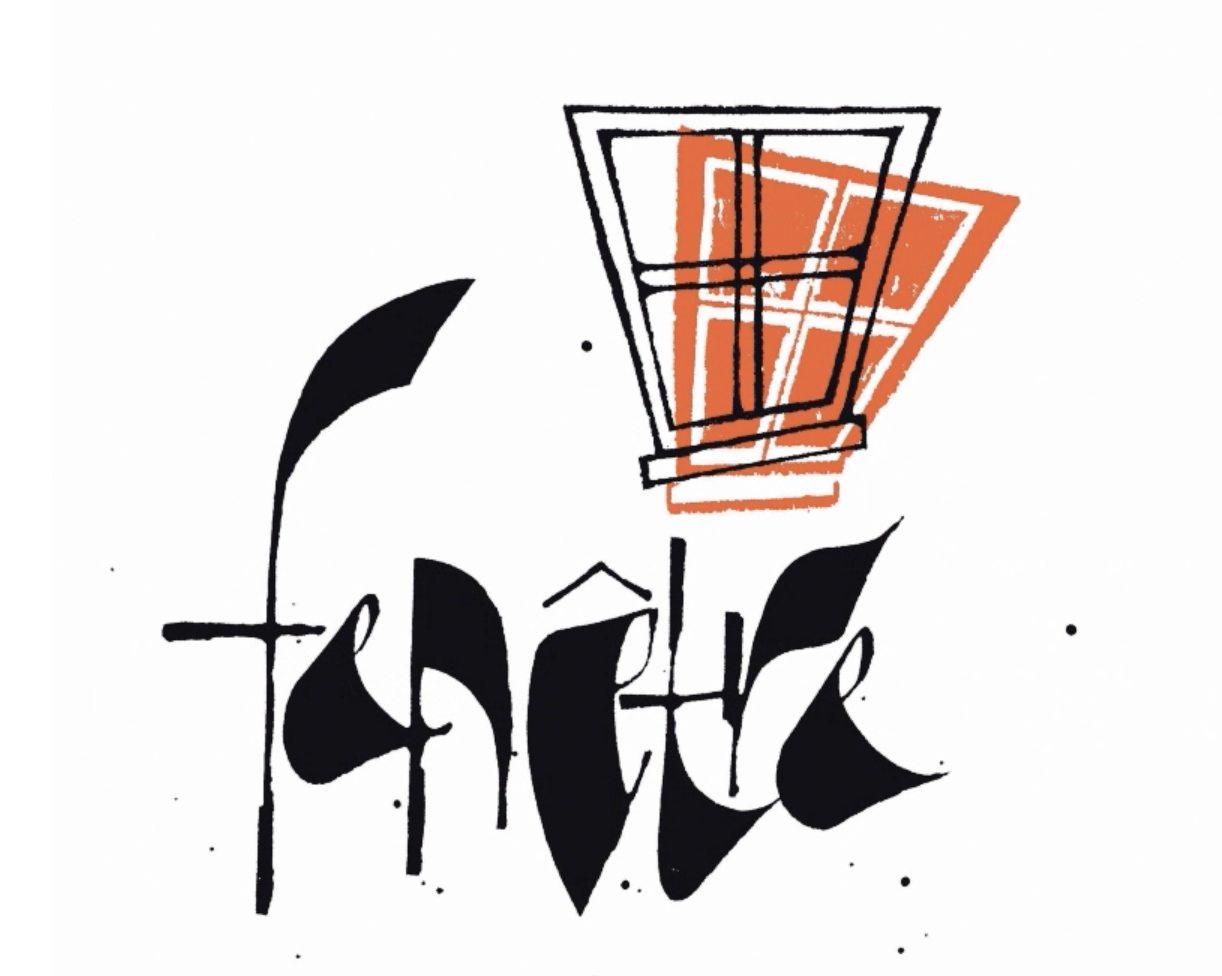
This workshop will cover two subjects. The main focus will be to learn a few unique and whimsical hands that became popular in the 1970s and ‘80s. Inspired by calligrapher and typographer Arthur Baker, these letter shapes profoundly influenced the work of many calligraphers at the time.
Students will practice steeply turning the pen to create interesting letter strokes. Practical applications for the use of these hands, at both large and small sizes will be covered. Through study and practice of these unique shapes, you may be inspired to take your own lettering to a new level.
Adding a Graphic Element to Your Calligraphy – Choosing the right hand, ink colors, and creating contrasts is usually all that is necessary to convey emotion in calligraphy. But sometimes an illustration can enhance your work. During the last portion of the workshop, Sue will share her tips and tricks to determine when to add a graphic element, how to choose a graphic, how to determine its size in contrast to the lettering, and the look, feel and placement of the graphic.